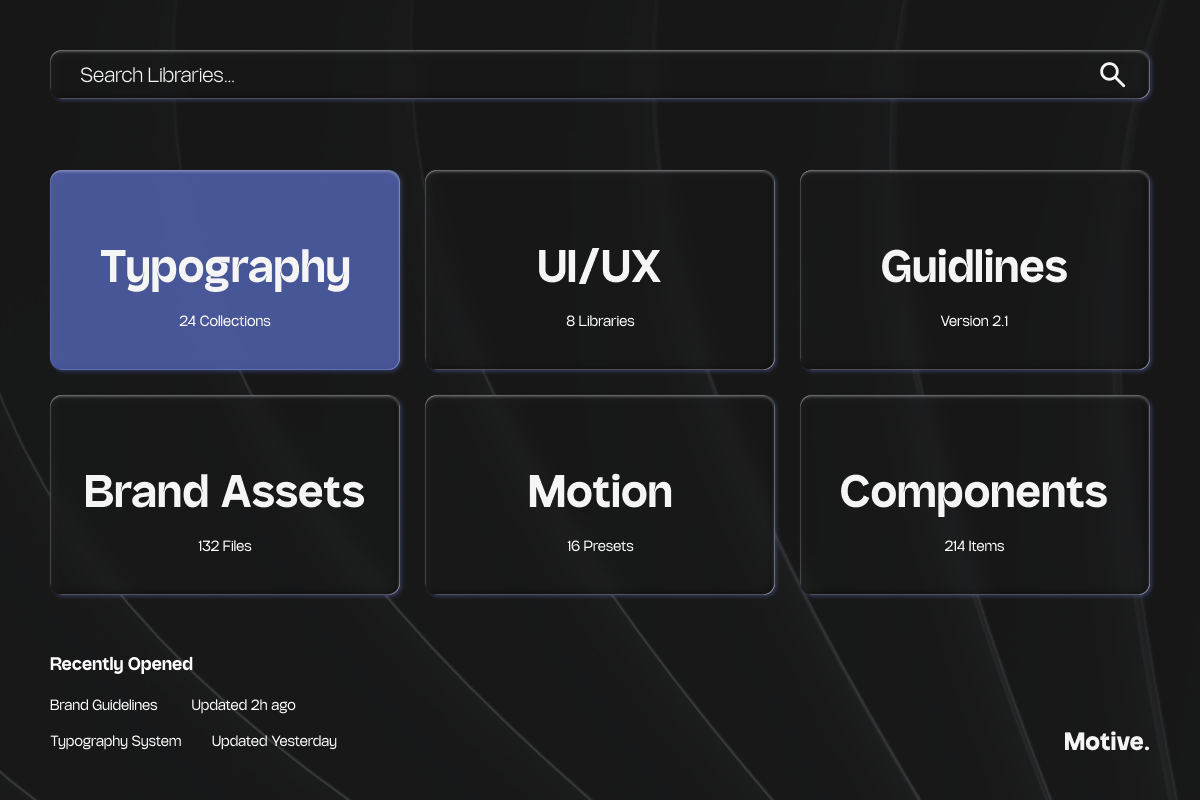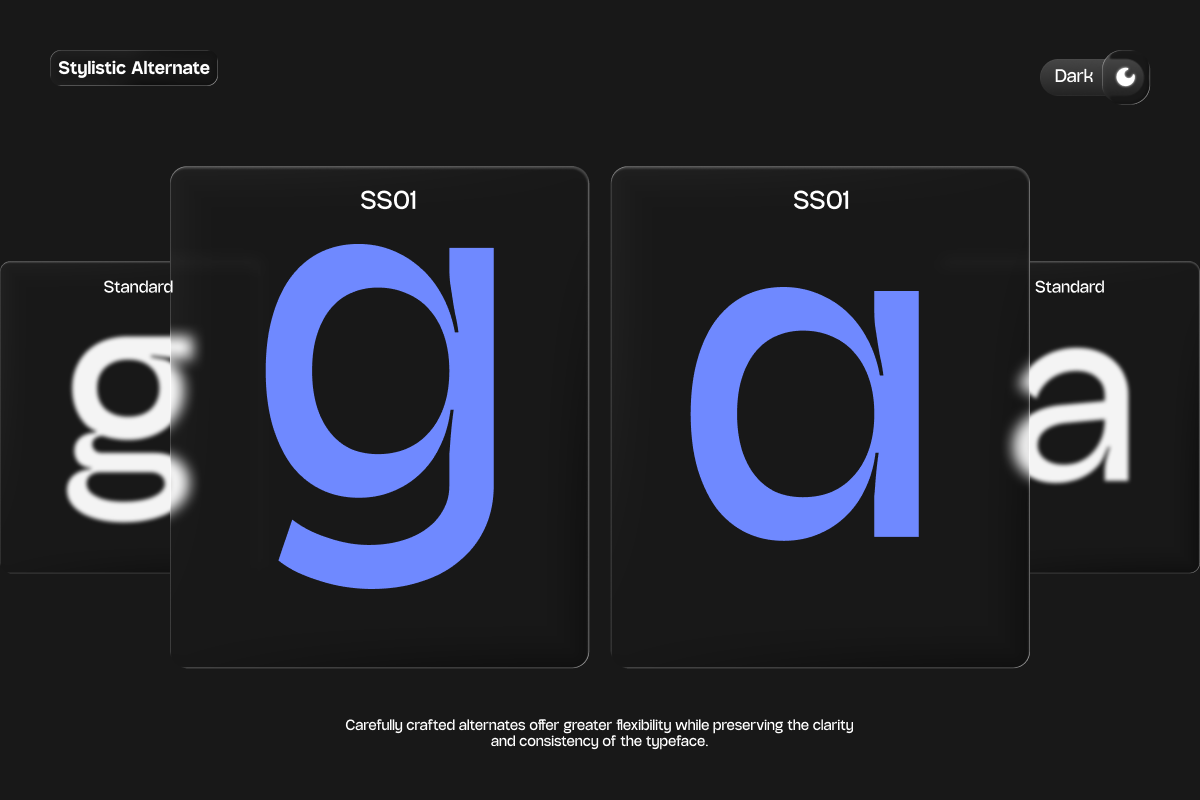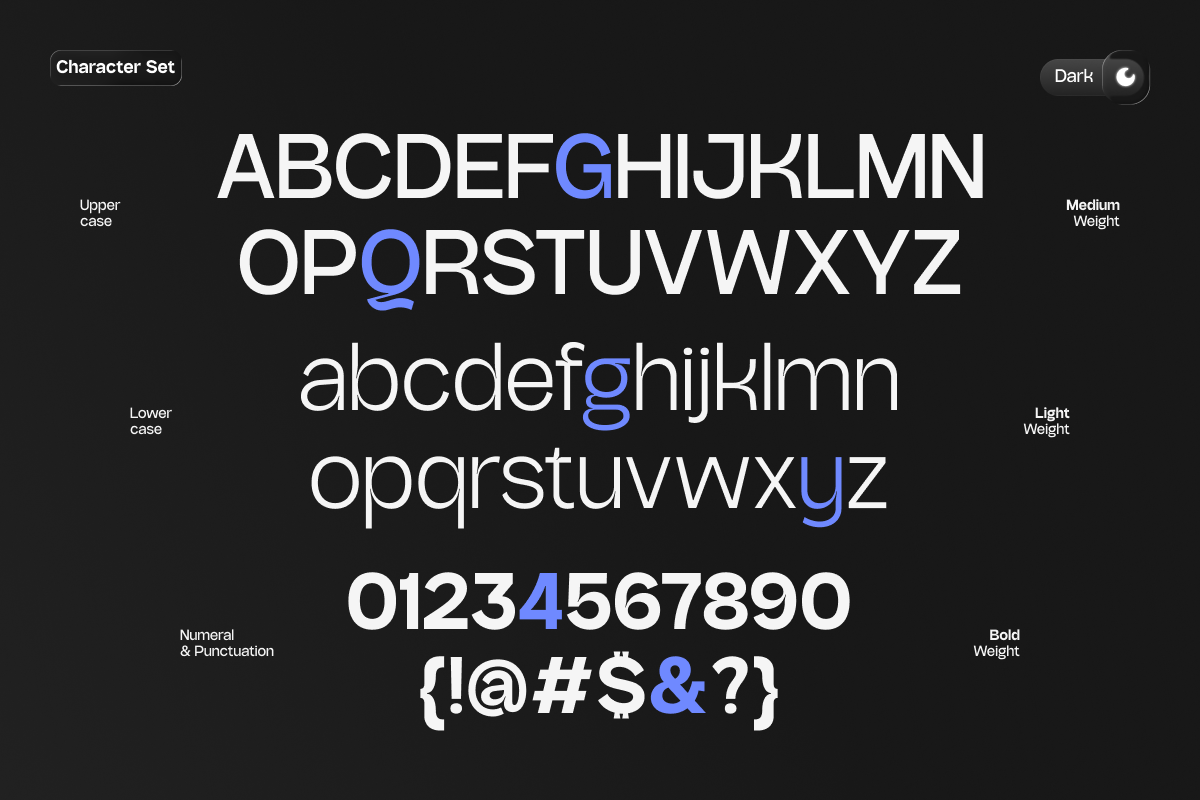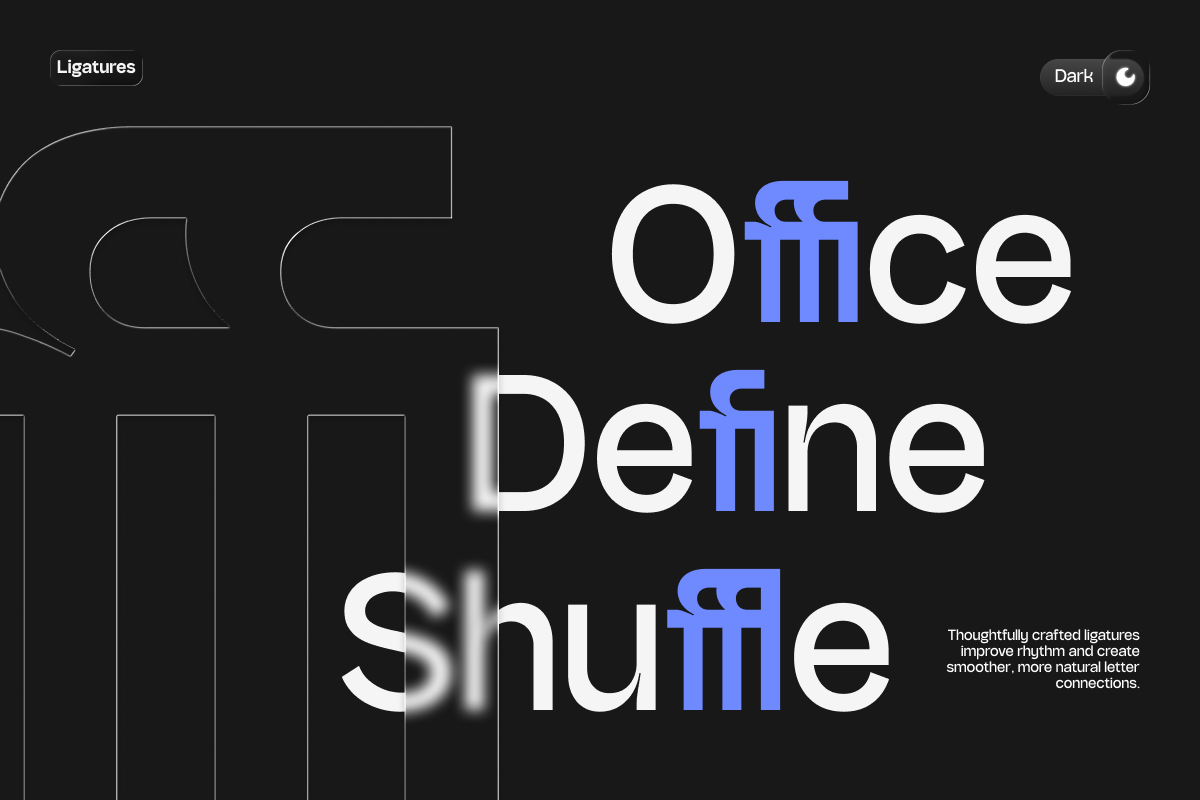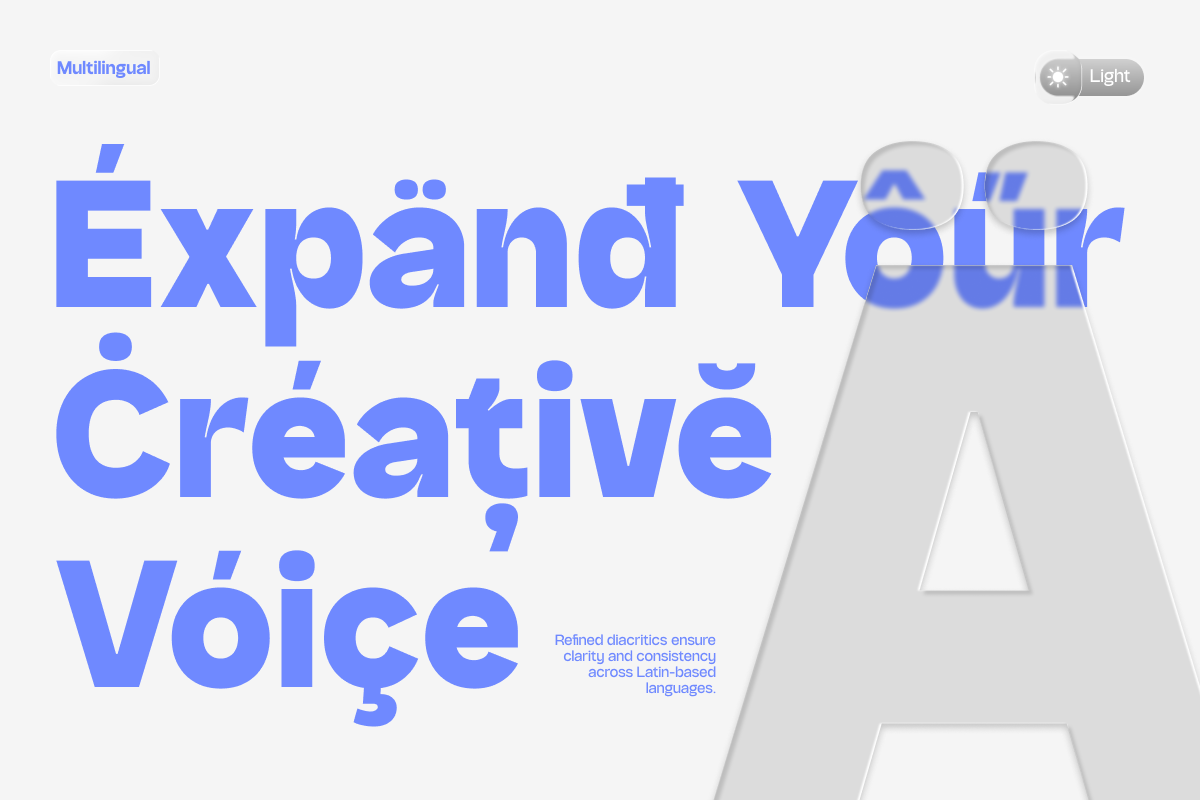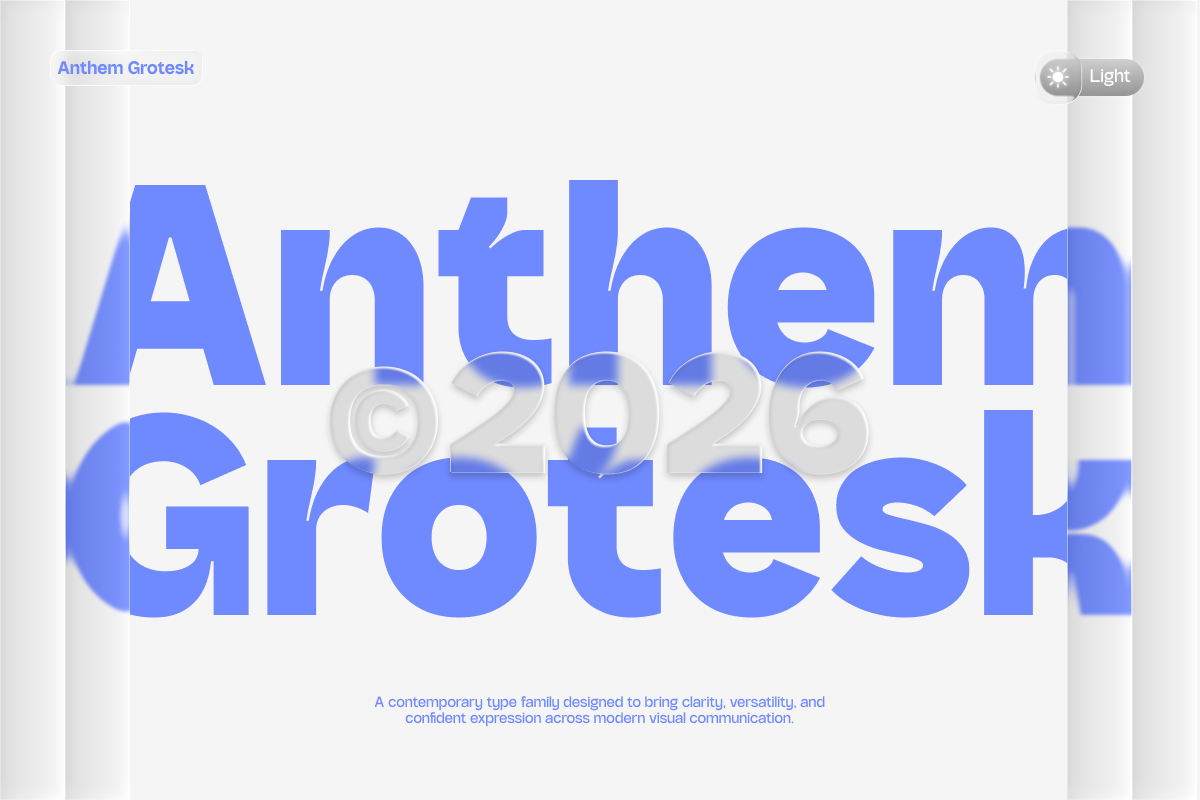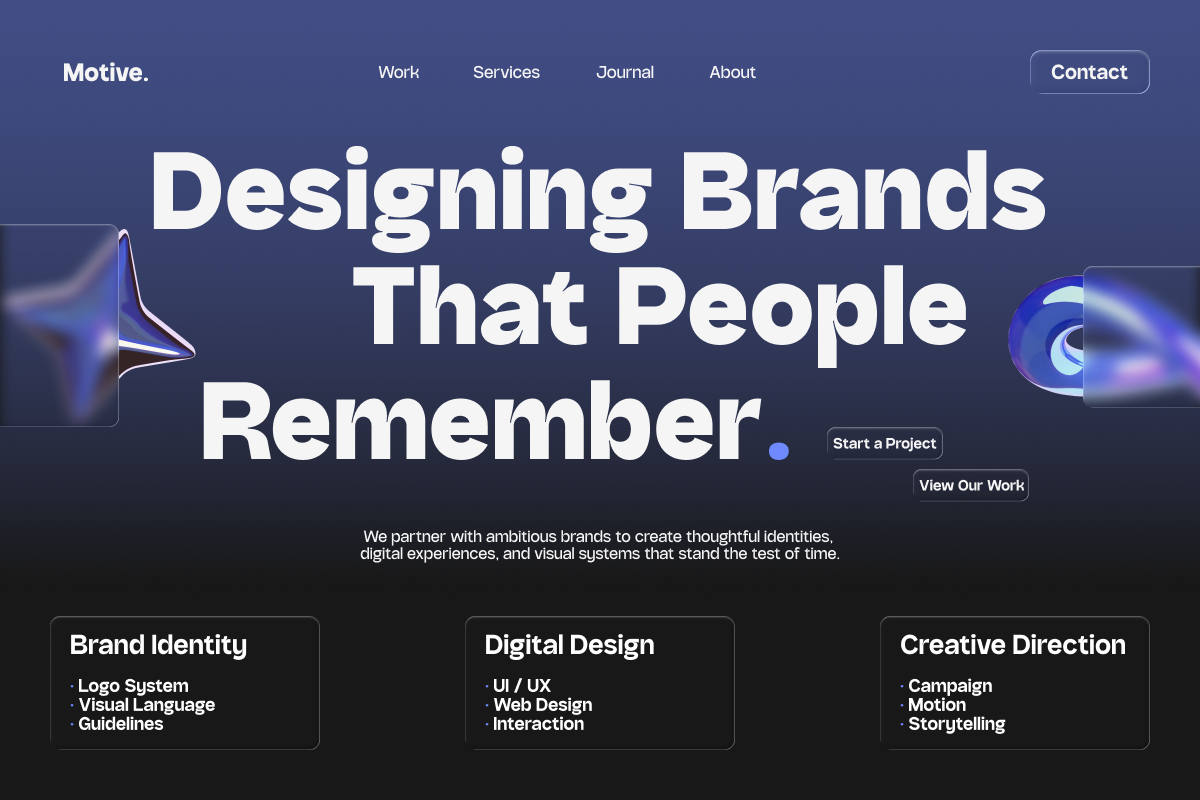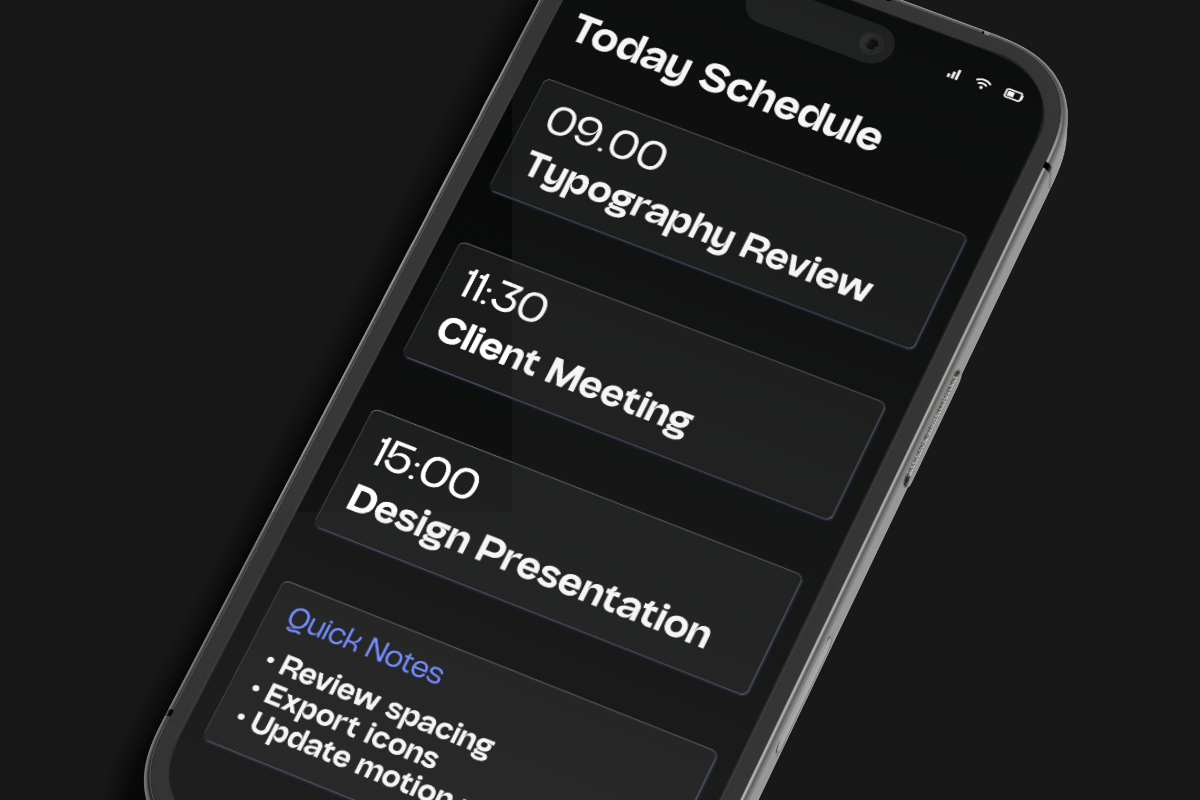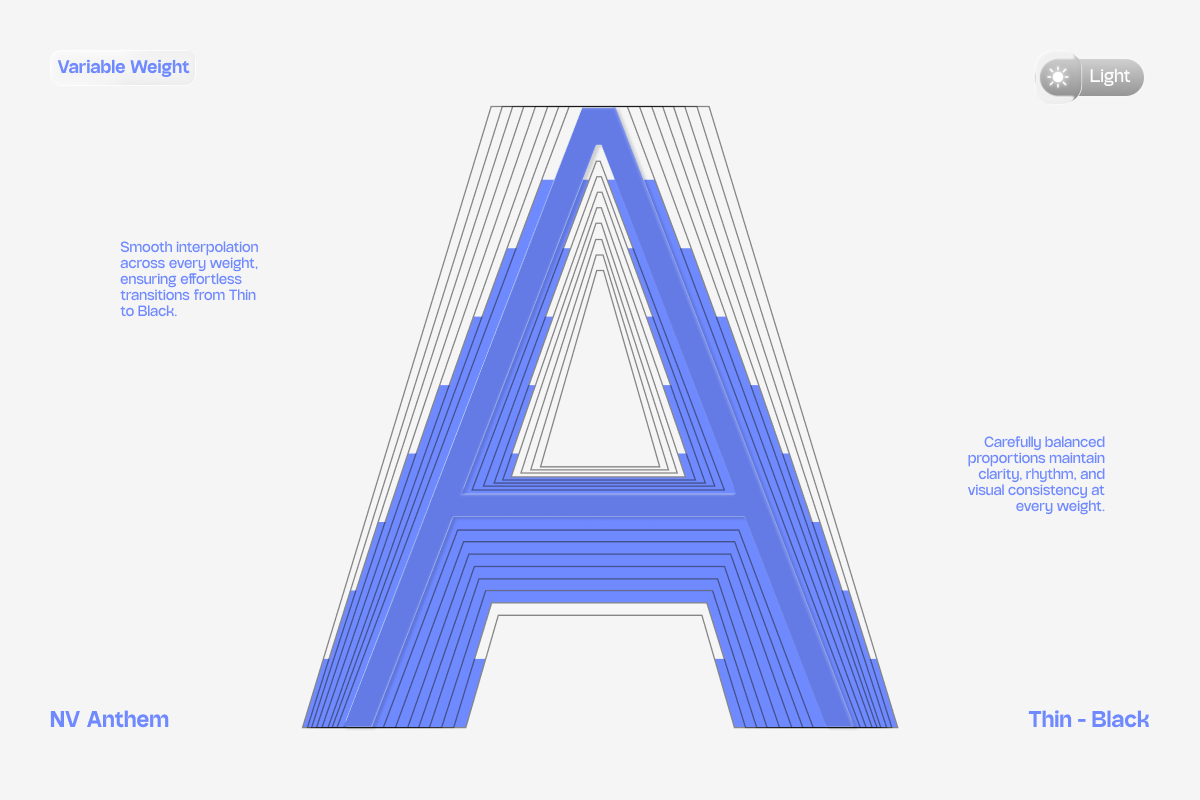
NV Anthem Grotesk – Grotesk Sans
NV Anthem Grotesk Sans Serif Font Family is a contemporary grotesk type system designed to deliver exceptional clarity, versatility, and timeless simplicity. Developed by NovaraType, NV Anthem Grotesk combines balanced proportions, refined geometry, and clean letterforms—making it an excellent choice for branding, editorial design, digital interfaces, corporate identity, and modern visual communication.
NV Anthem Grotesk is carefully crafted to perform across a wide range of creative applications while maintaining a clean and consistent typographic voice. Its modern grotesk construction provides outstanding readability at every size, from elegant body text to commanding headlines. Designed with precision and subtle character, it offers a professional yet approachable appearance that adapts seamlessly across both print and digital media.
Whether you're building a sophisticated brand identity, designing editorial publications, crafting intuitive user interfaces, or developing modern marketing materials, NV Anthem Grotesk delivers the flexibility, clarity, and visual balance needed for contemporary design systems. With multiple weights and refined details, it becomes a reliable typographic foundation for projects that demand both functionality and style.
NV Anthem Grotesk Sans Serif Font Family Includes:
Multiple Weights
Grotesk Sans Serif Styles
Alternates & Ligatures
Accented Characters